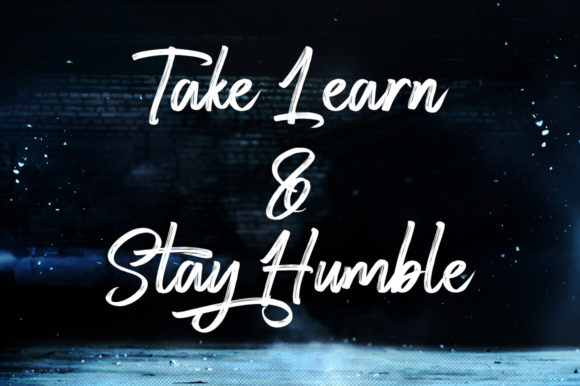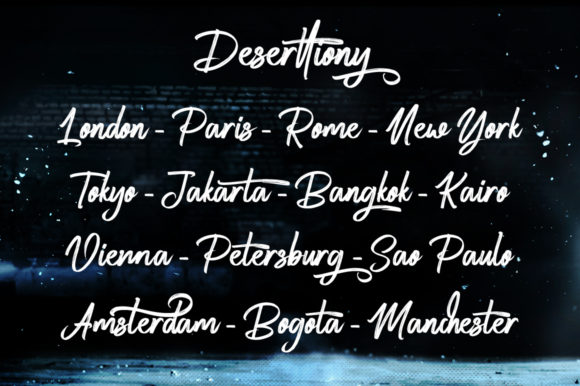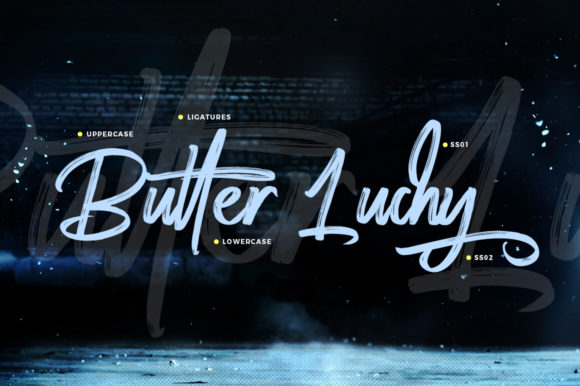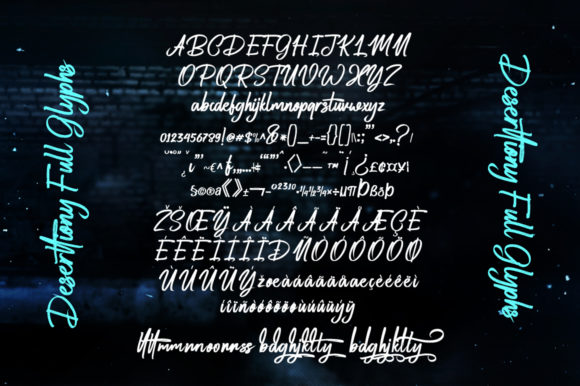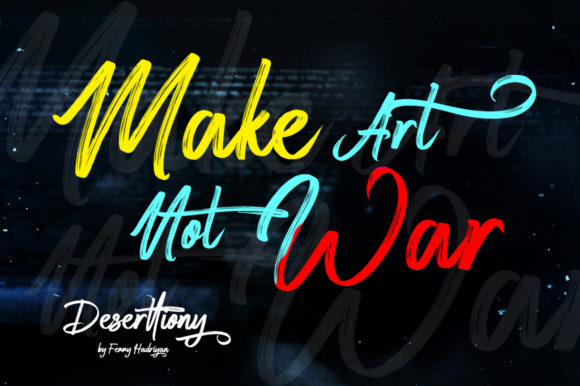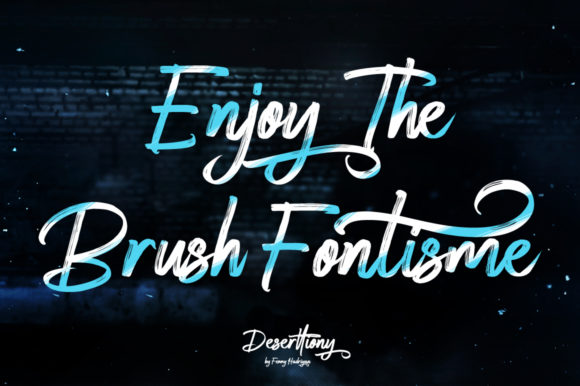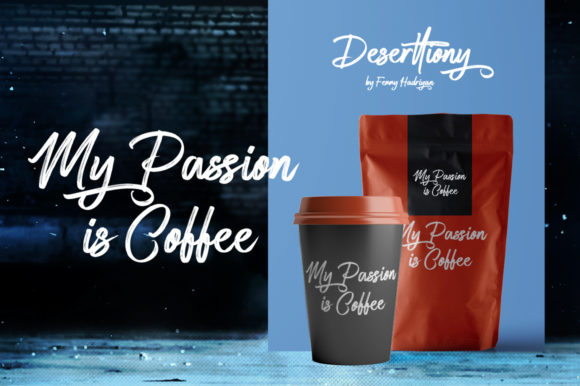
Deserttiony Font
About Deserttiony Font
Deserttiony is a lovely and flowing handwritten font, created with the help of a beautiful brush pen. Fall in love with its incredibly versatile style and use it to create gorgeous wedding invitations, beautiful stationary art, eye-catching social media posts, and much more!